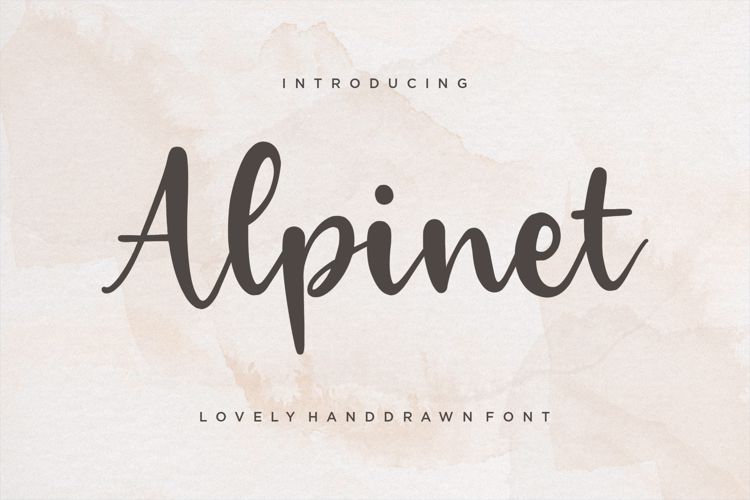
Alpinet Font
Introducing by Letterative Studio : Alpinet Font
Alpinet is a Lovely Handwritten Font
Alpinet is perfect for product packaging, branding project, megazine, social media, wedding, or just used to express words above the background.
Alpinet also multilingual support